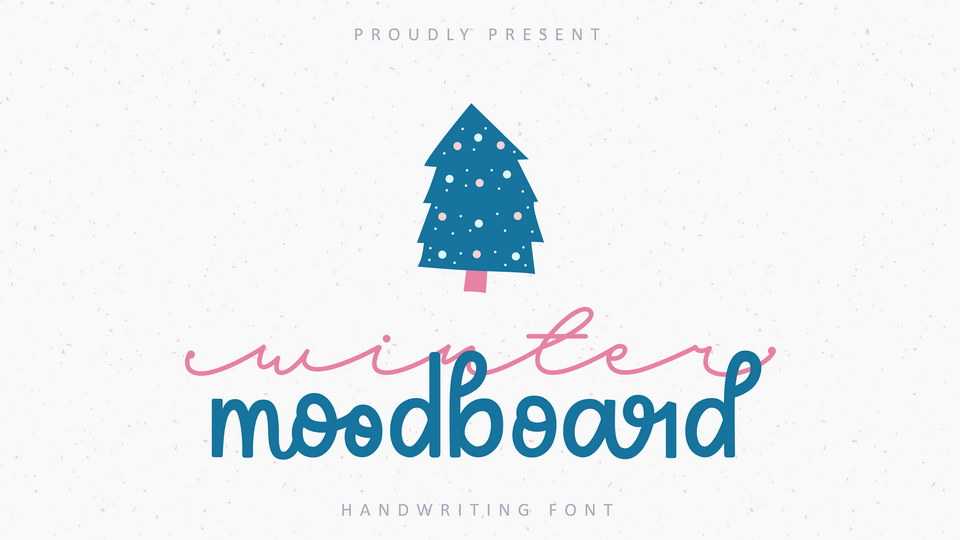
Download Winter Moodboard font, a delicate and vintage styled handwritten typeface. Winter Moodboard will add a luxury spark to any design project that you wish to create.
Designer: Dewi Purwaningrum